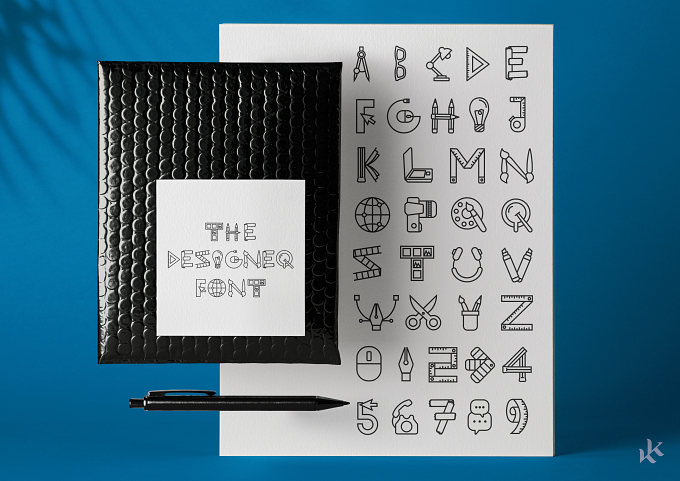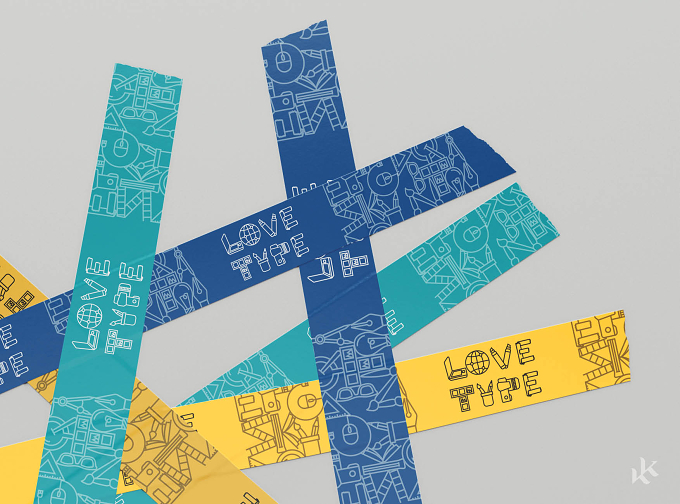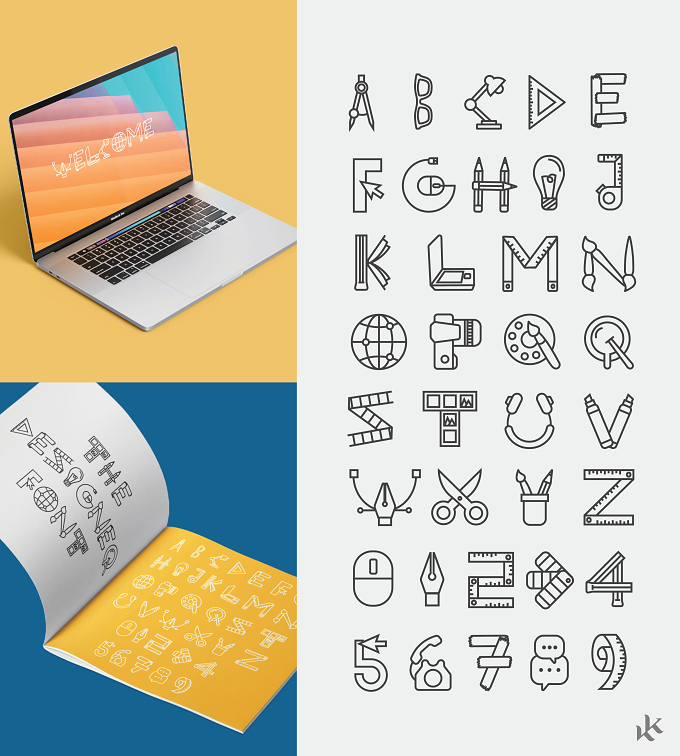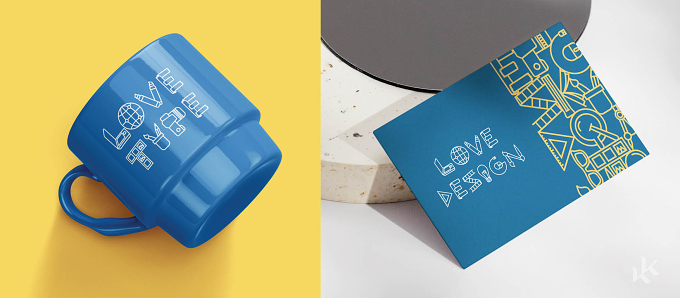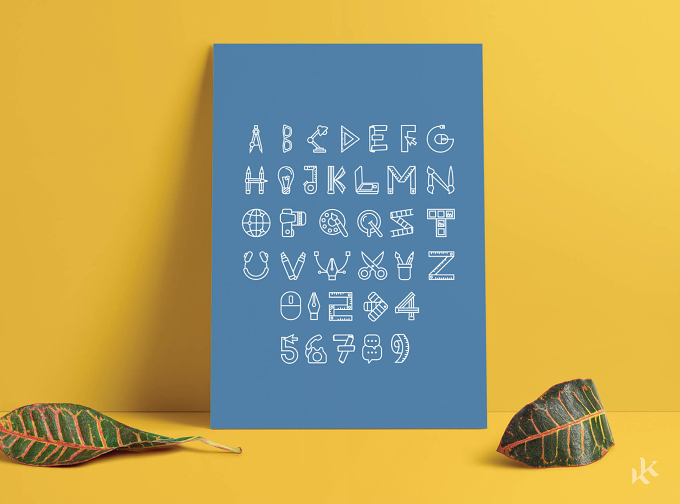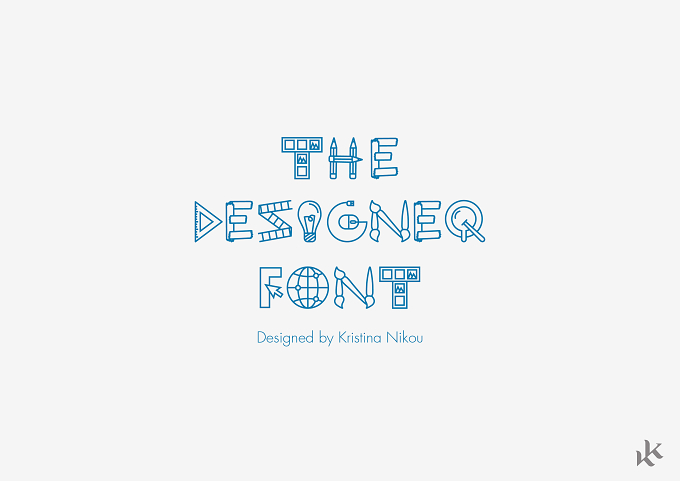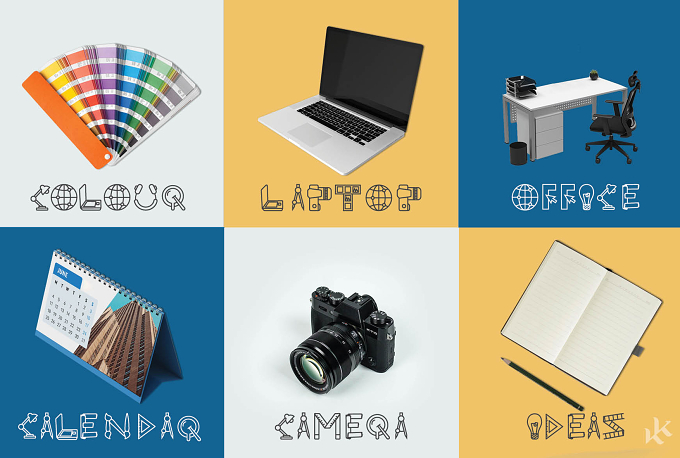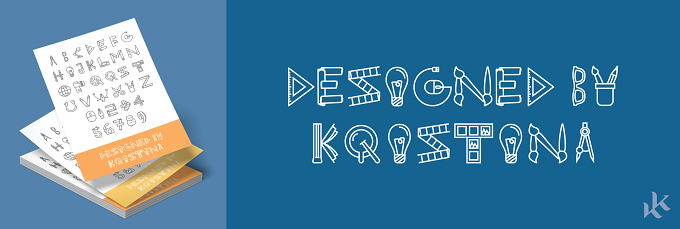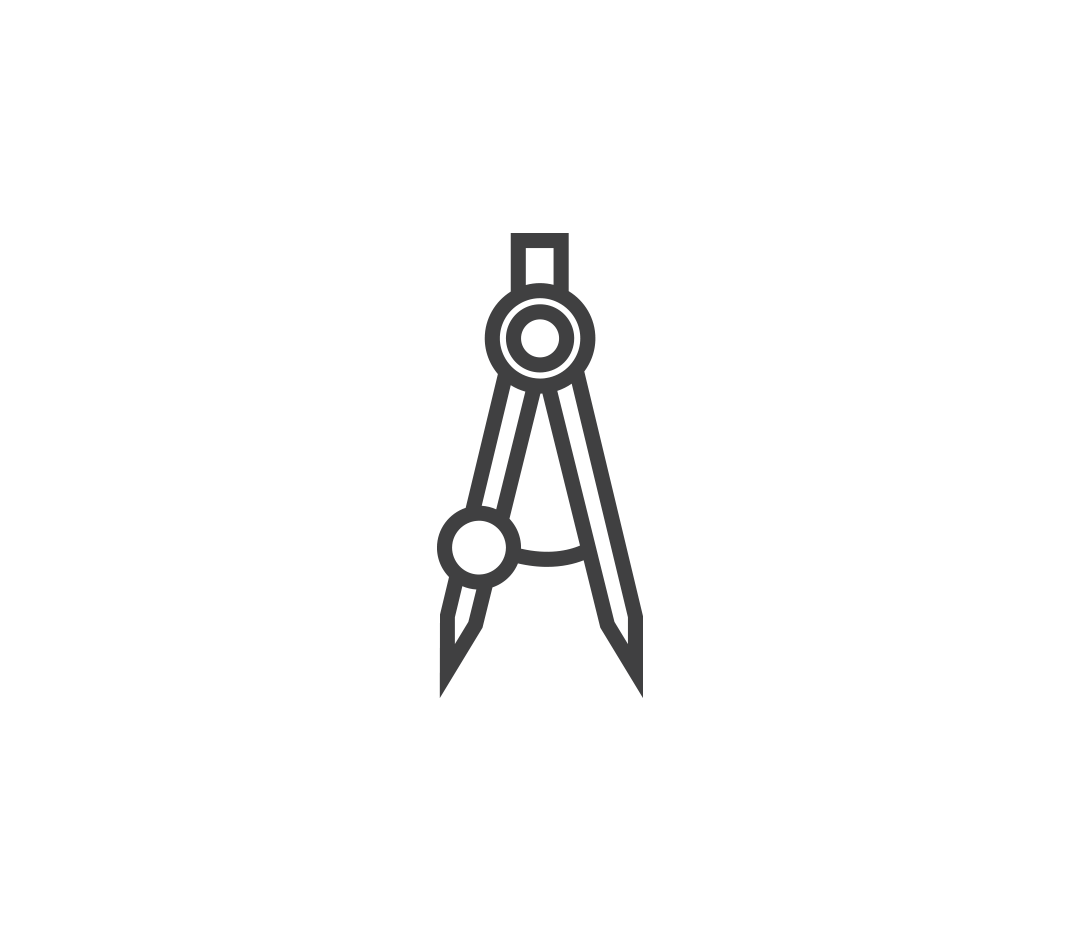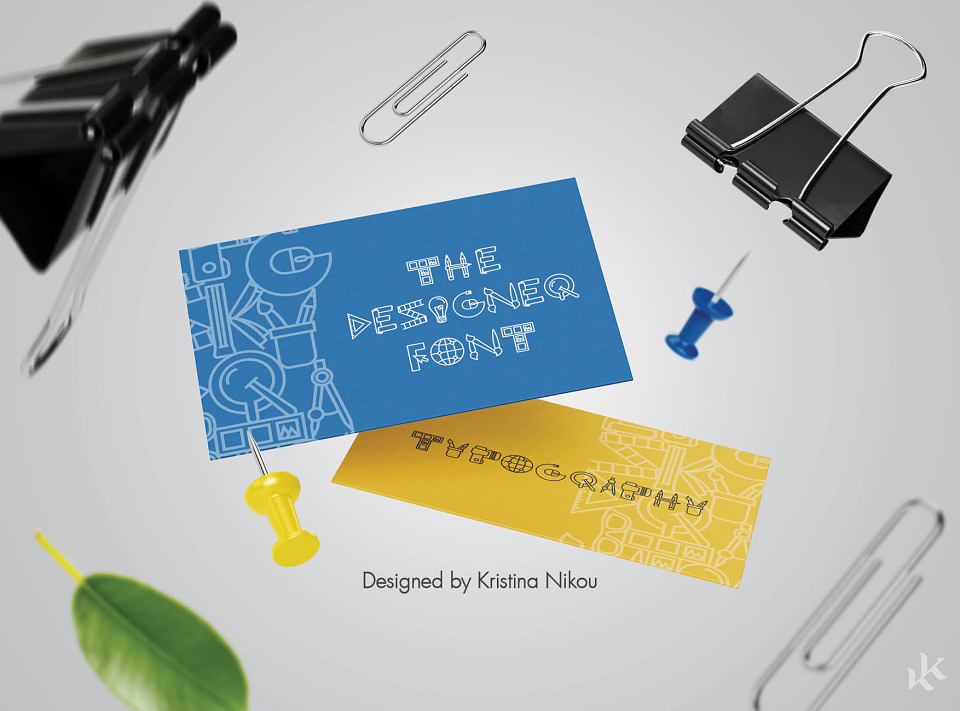
The idea was to design decorative title font of everything that represents us, designers. ‘The Designer Font’ letters each represent an item or a tool used by designers or even things that are included in our designer office environments like a camera or a coffee cup or even a desk lamp. Each letter has its own shape, for some letters I combined different items to create the letter and number shape form.